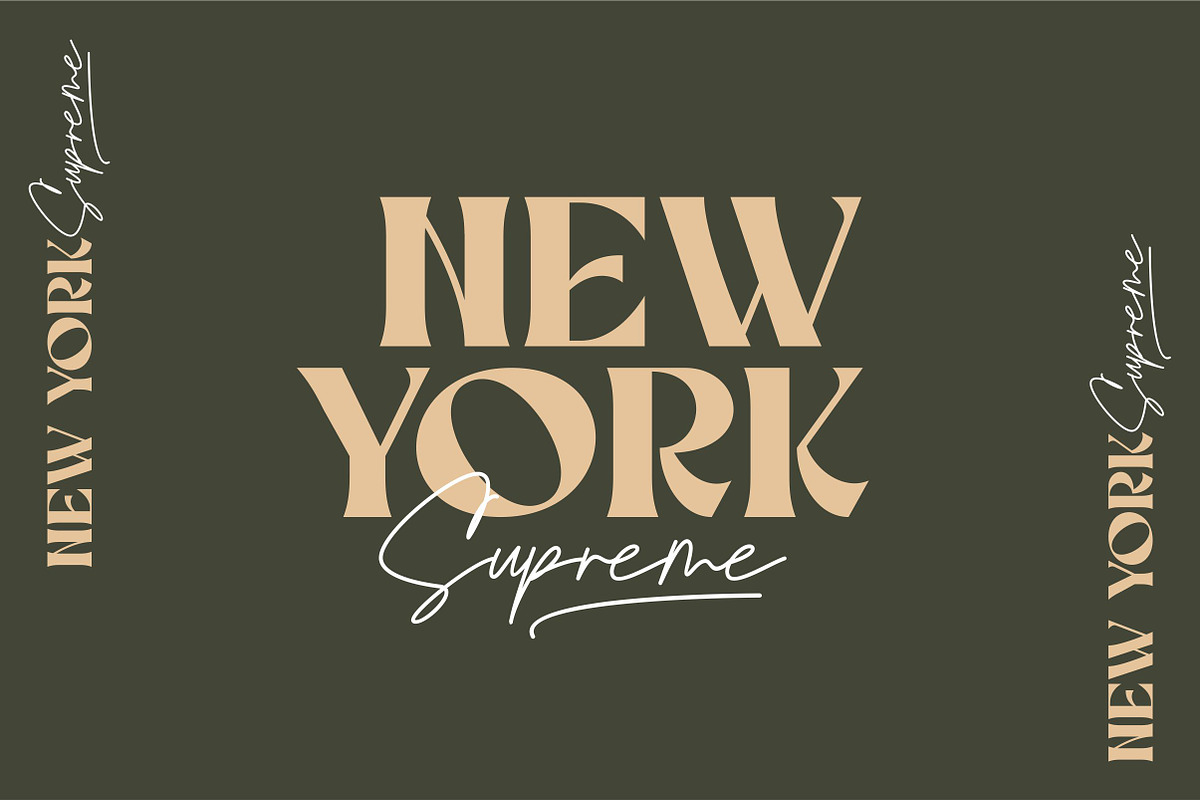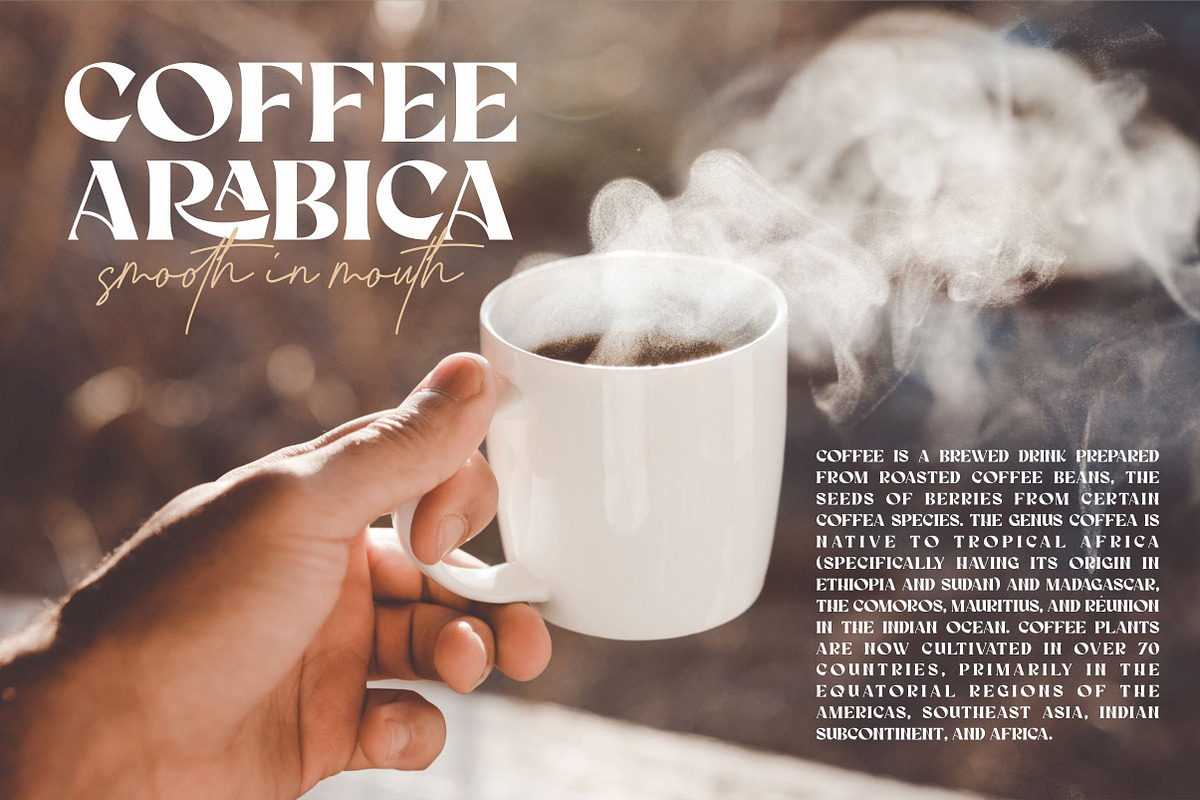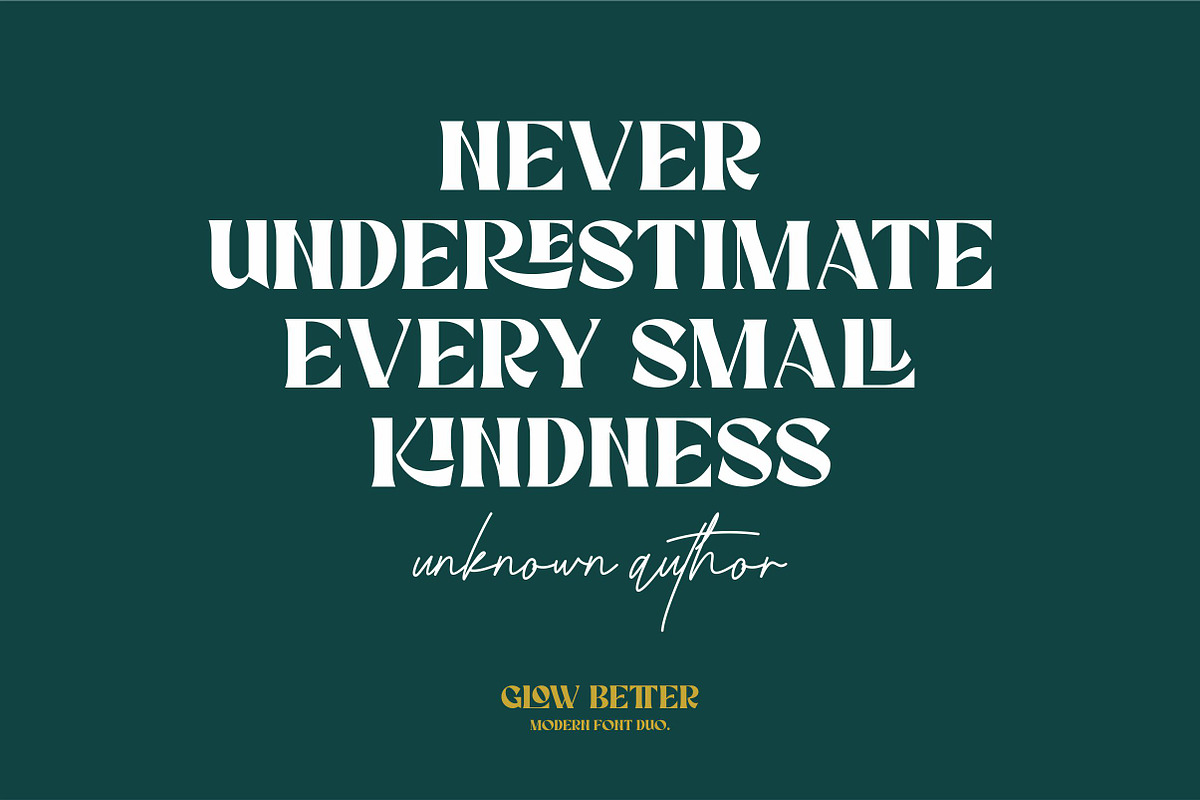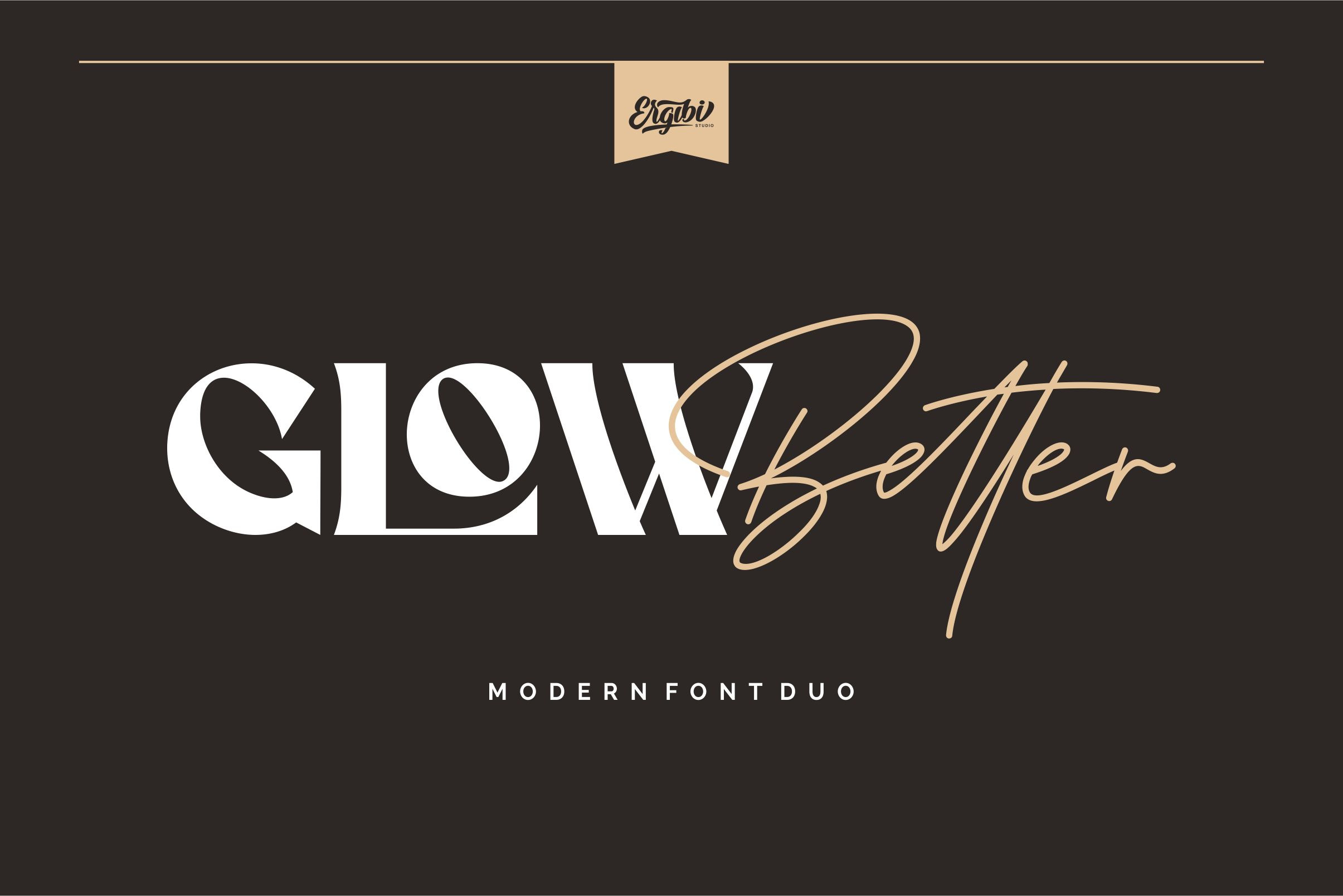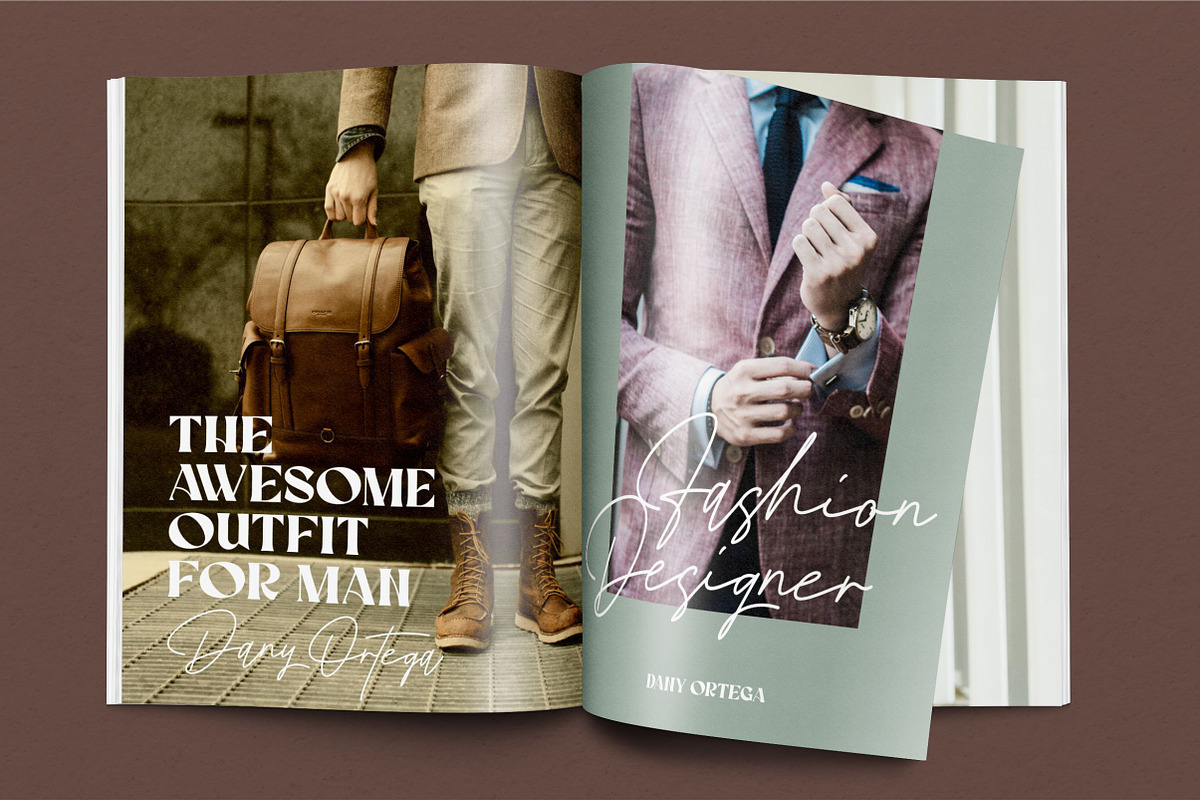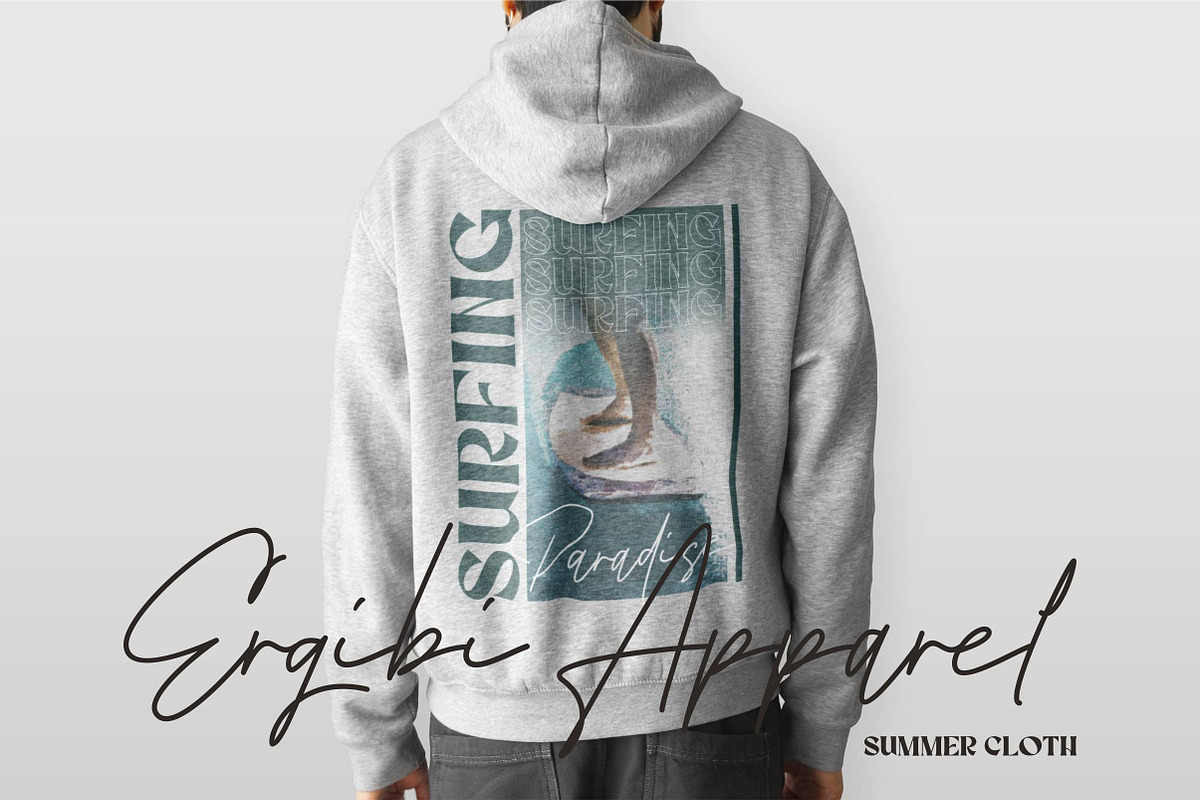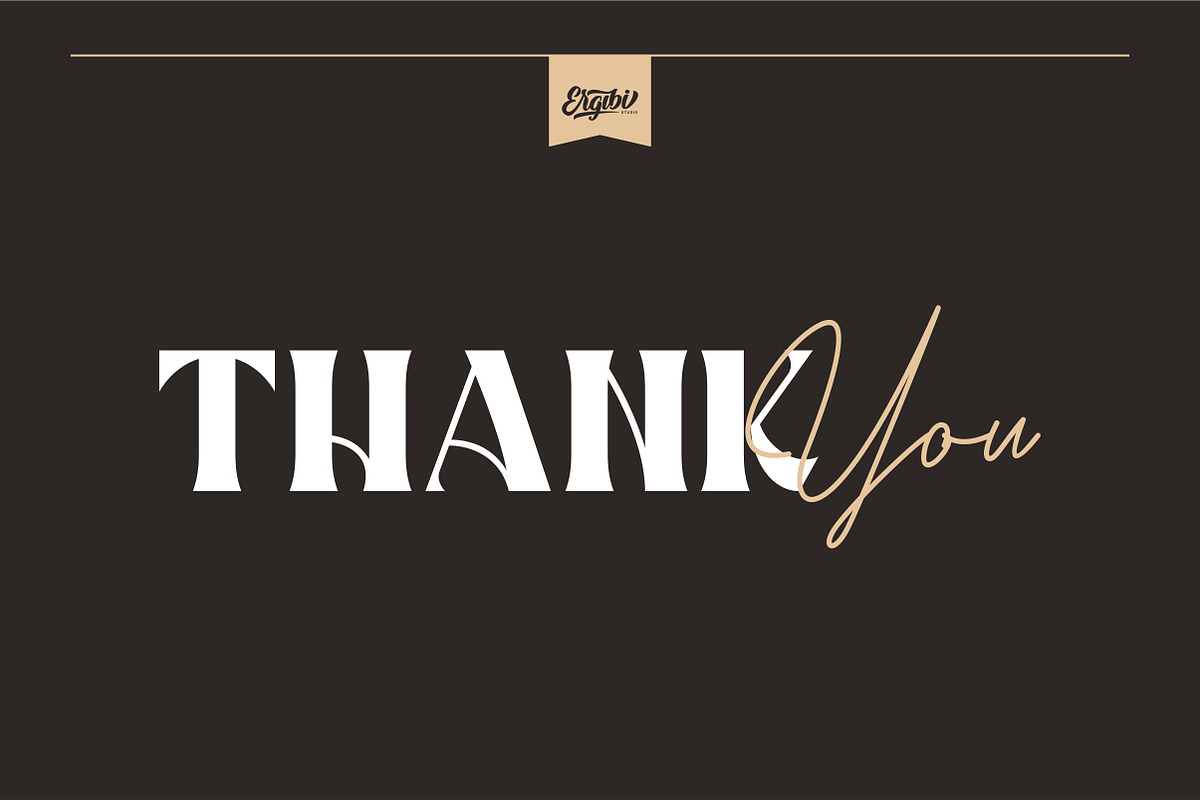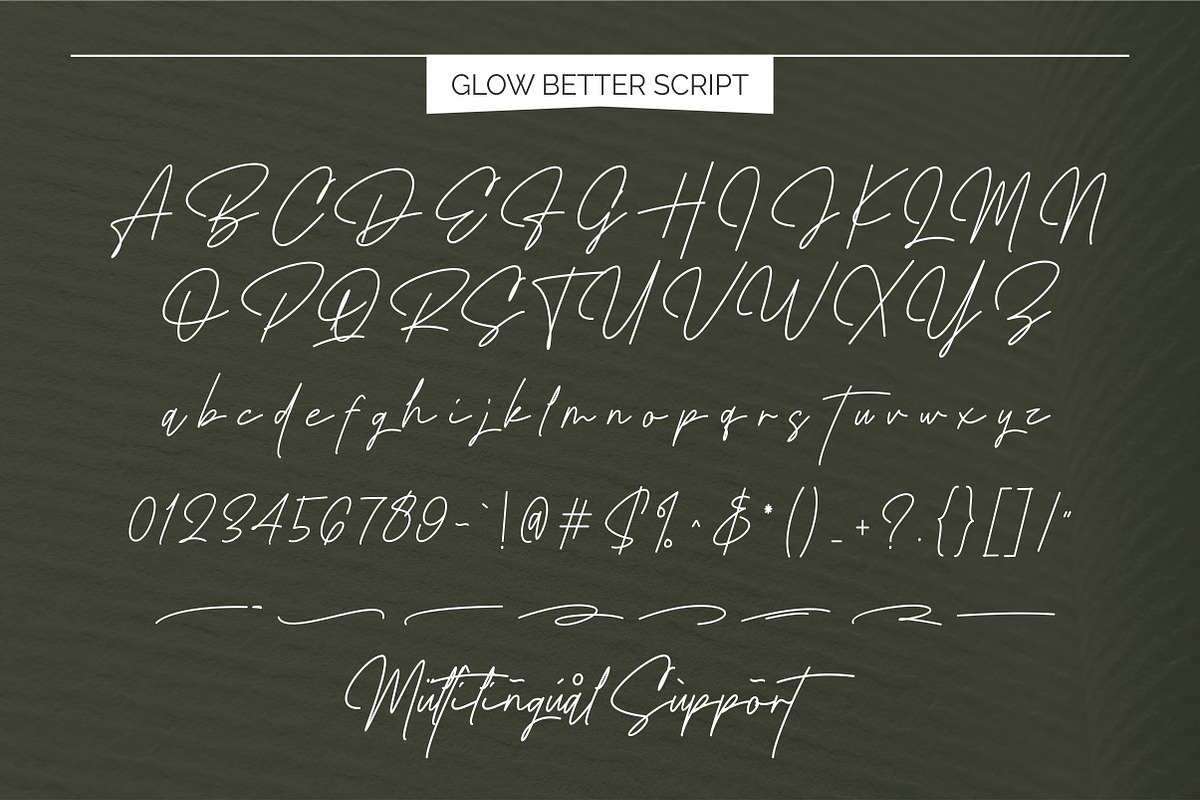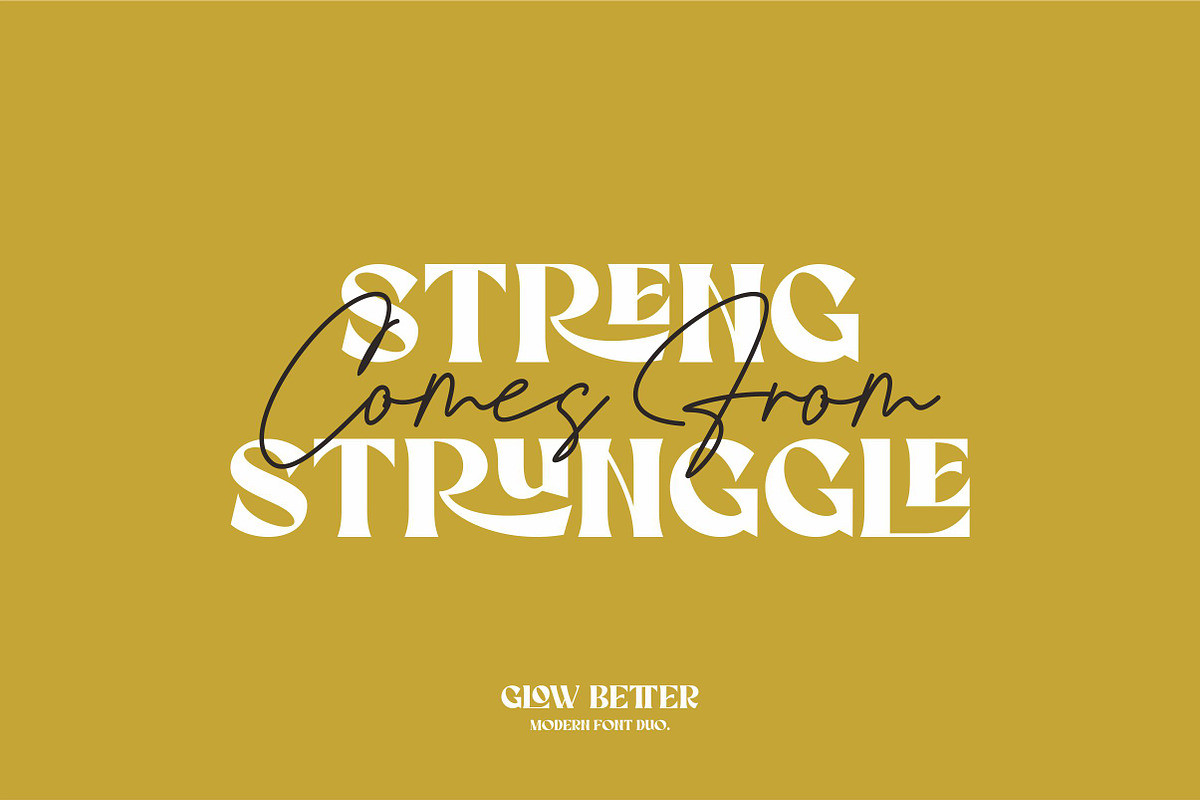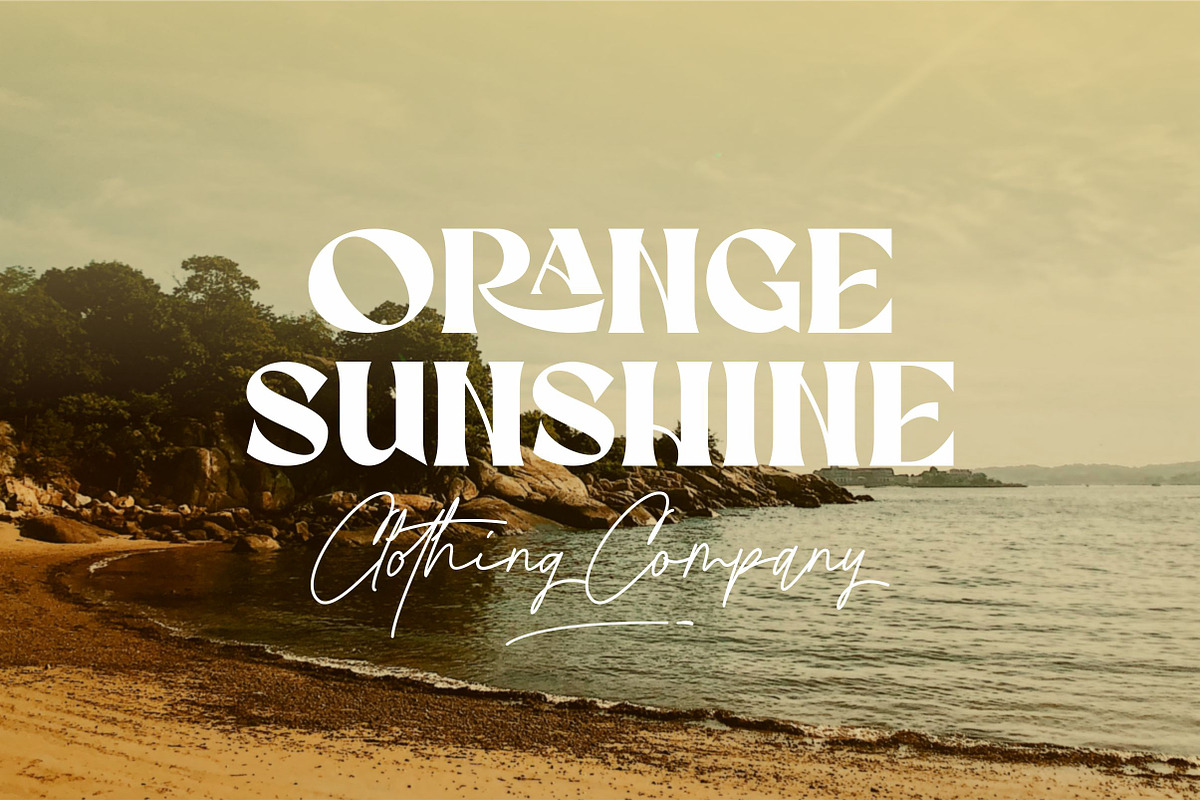
Glow Better - Modern Font Duo
Glow Better Modern Duo, these fonts are of two types serif and script. Display Serif inspired by famous logo, This typeface has been made carefully to make sure its premium quality and luxury feel. The ligatures on serif makes this typeface unique and stands out rather than the regular serif font, perfectly for headlines, wedding, social media, logos, posters, packaging, T-shirts,coffee shops, restaurants, magazine’s headers, signs or gift/post cards,cafe’s and weddings or any type of advertising purpose.